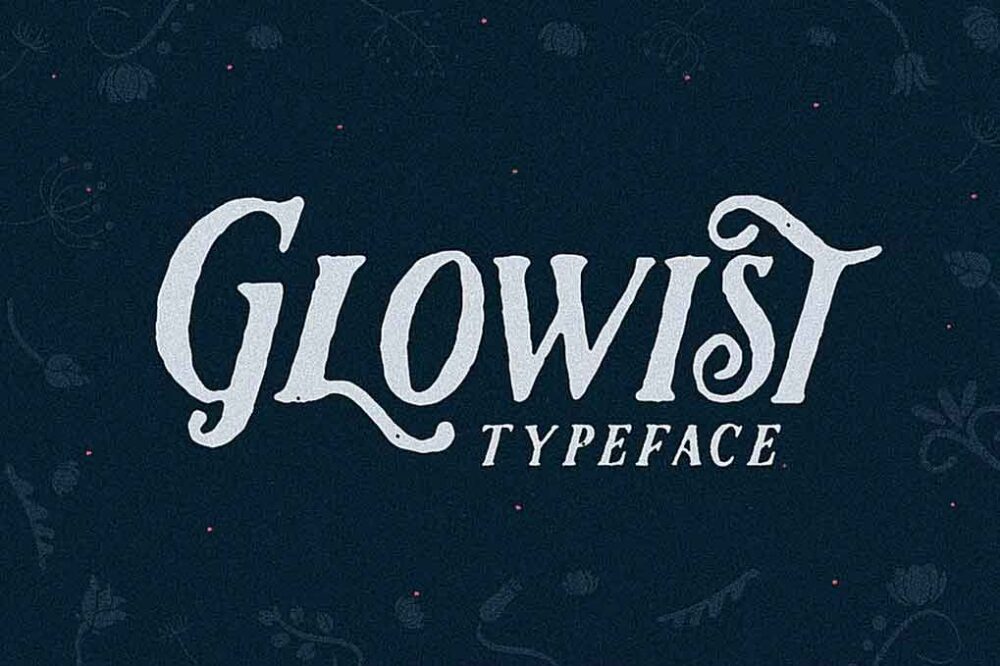
Glowist Font
Introducing our first font This is Glowist typeface is serif font made with hand drawn style to create natural vibe on the artworks.
Glowist comes with alternate characters and ornaments that will provoke your creativity and make it easier to make the awesome work.
This font is suitable for greeting cards, posters, labels, t-shirt design, etc.
Inside this fonts also included Vector ornament as in the display.